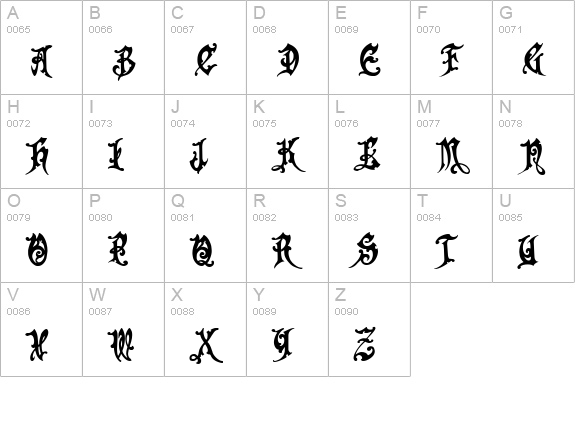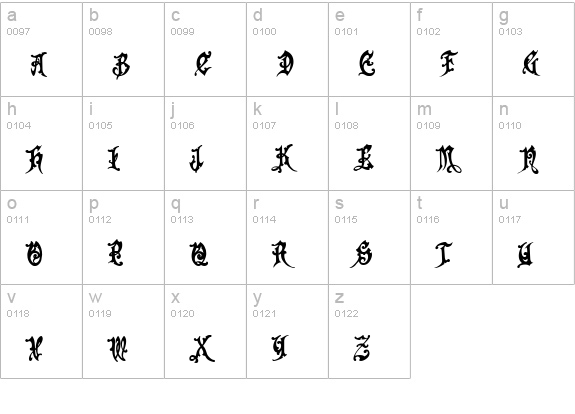
Apollyonâ„¢ Font Details
Apollyon™ font is a striking display typeface that exudes a sense of power and sophistication. With its sharp angles and bold lines, this font commands attention and makes a strong statement in any design project. The sleek and modern design of Apollyon™ font is perfect for branding, headlines, and other eye-catching applications. What sets Apollyon™ font apart is not only its unique aesthetic but also the fact that it is freely available to download at FontsMarket.com. This means that you can easily incorporate this stunning font into your projects without having to worry about any additional costs. Whether you're a professional designer looking to add a powerful touch to your work or a hobbyist seeking to elevate your creations, Apollyon™ font is the perfect choice for making a bold impact. Download it now and unleash the full potential of your designs with Apollyon™ font.